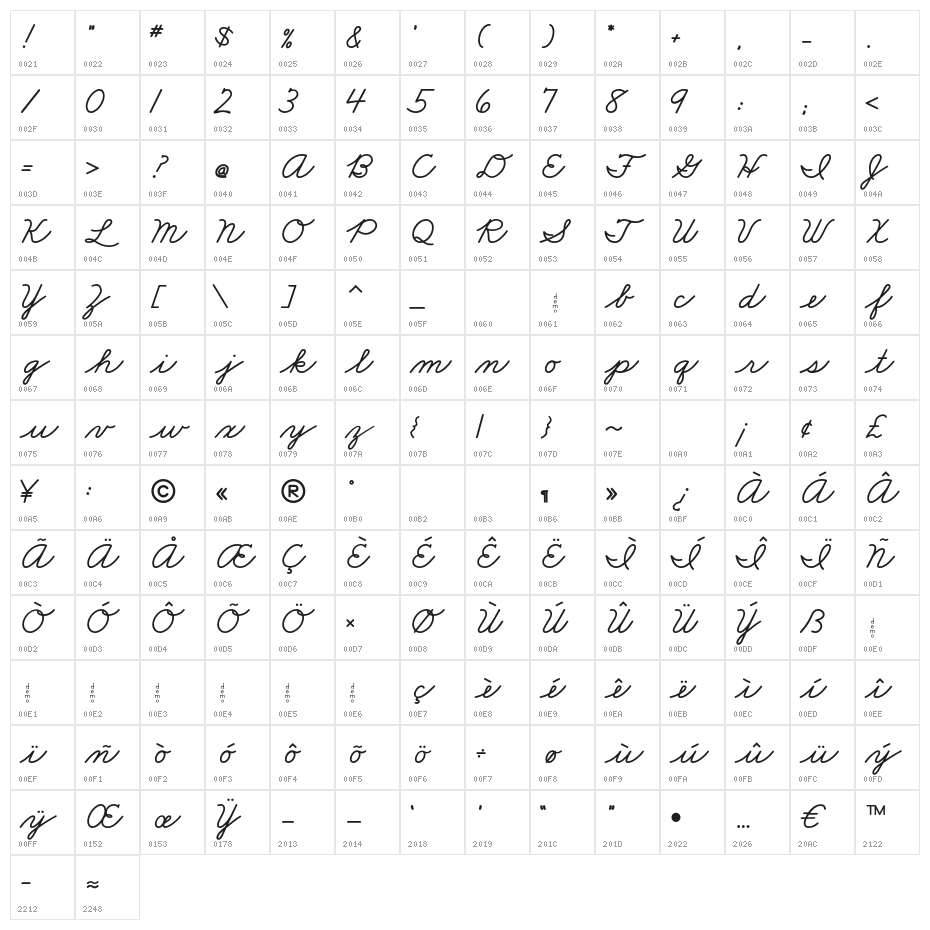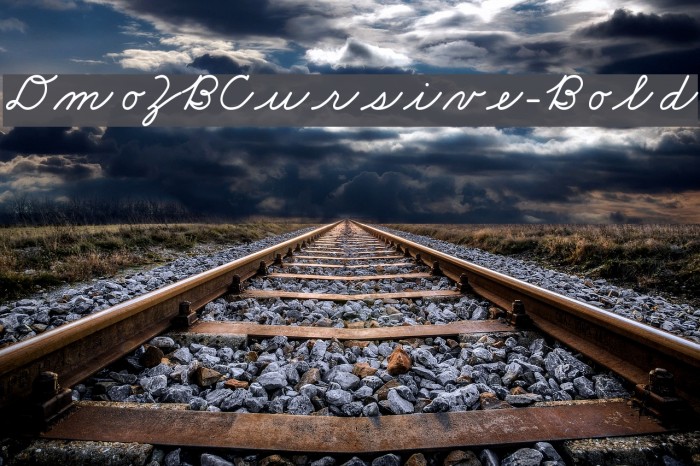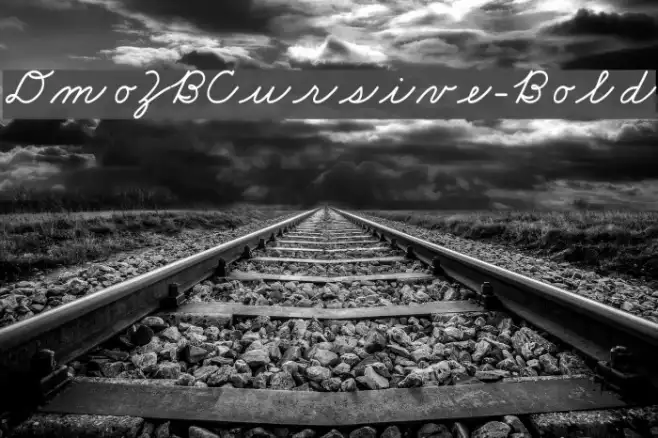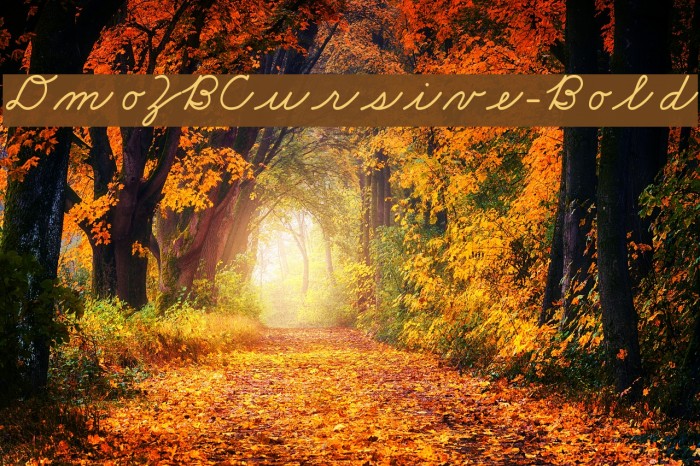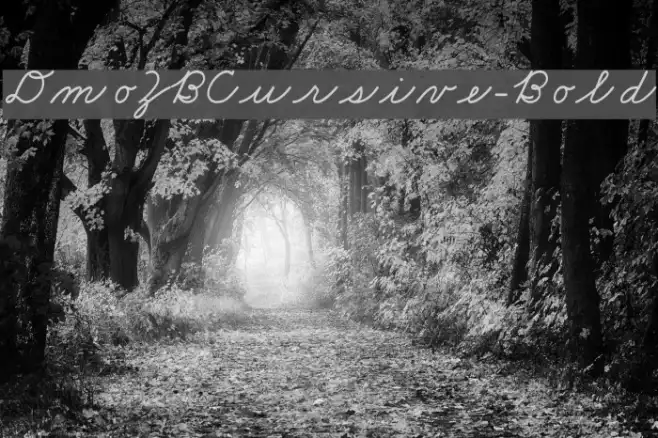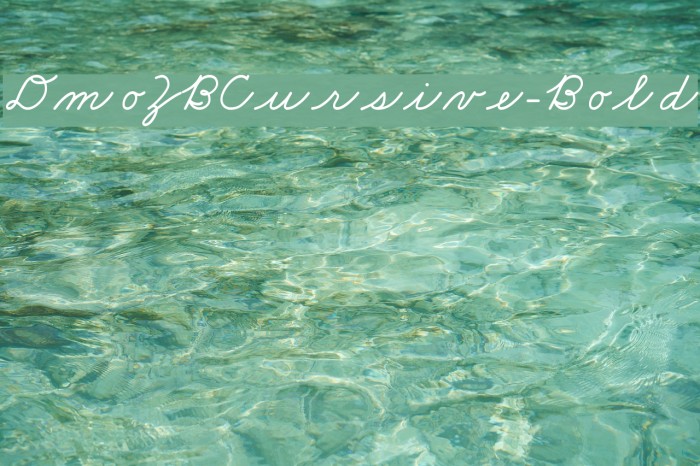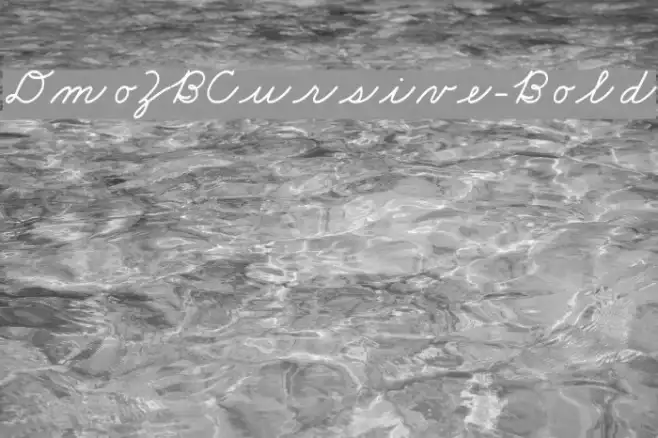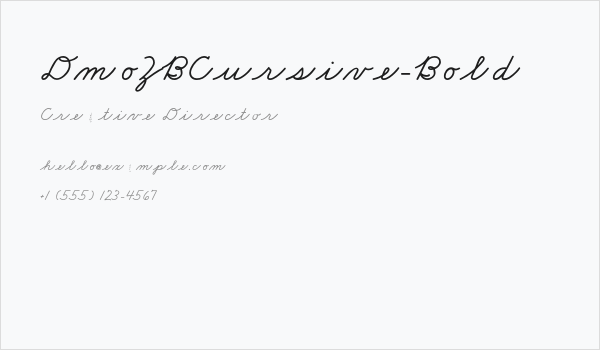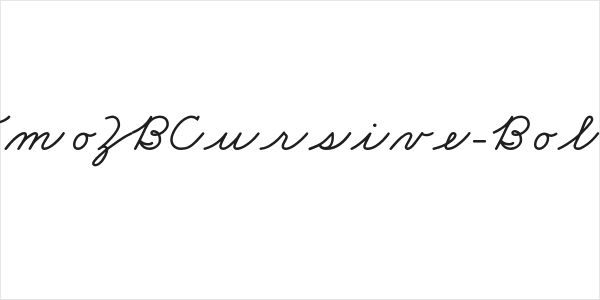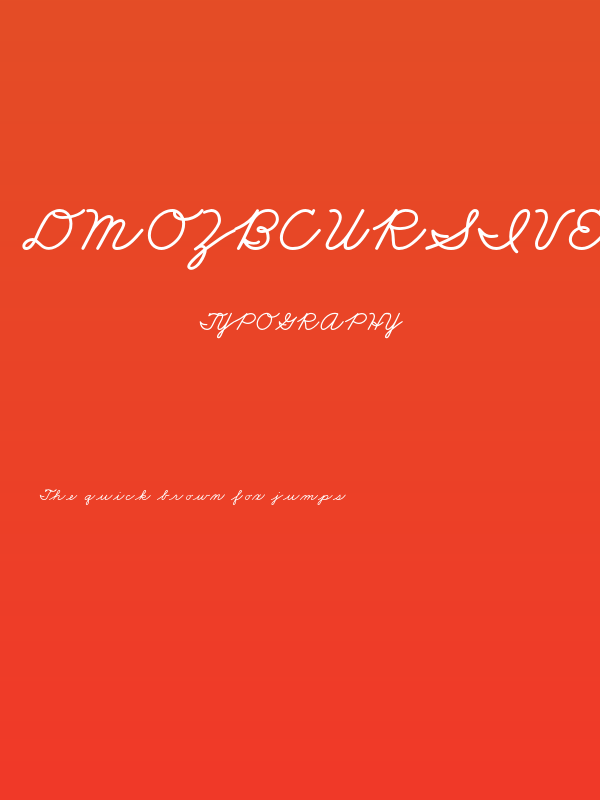
DmoZBCursive-Bold Font
DmoZBCursive-Bold Description
This font features a flowing, cursive style that exudes elegance and sophistication. The characters are interconnected, creating a seamless and fluid appearance. The strokes are bold, providing a strong visual impact while maintaining a graceful and delicate aesthetic. The uppercase letters are slightly larger and more pronounced, adding a touch of formality, while the lowercase letters maintain a consistent flow. The numerals and special characters are designed to complement the overall cursive style, ensuring a cohesive look across all text elements.